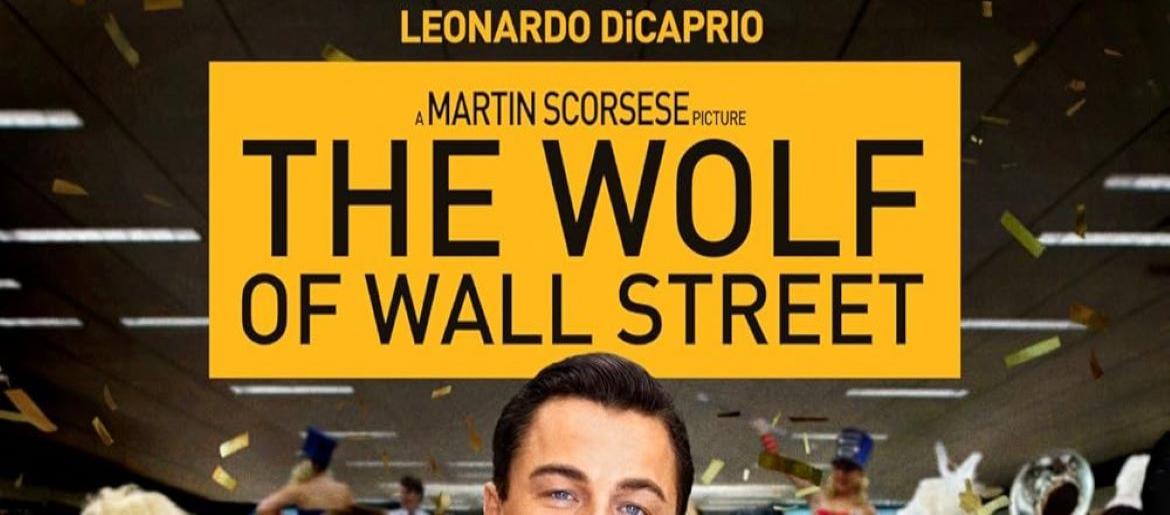
The Wolf of Wall Street Font
The Wolf of Wall Street Font perfectly embodies the chaos, ambition, and excess of Martin Scorsese’s 2013 masterpiece. Bold, confident, and unapologetically sharp, its lettering mirrors the high-stakes world of money, power, and risk portrayed in the film. The typography commands attention, instantly conveying energy and authority, much like Jordan Belfort himself. Fonts similar in style include Helvetica Bold, Arial Black, and Futura Extra Bold, all offering that slick, corporate edge and modern impact. Free alternatives can replicate this strong, high-energy aesthetic, making the typeface ideal for posters, titles, and promotional designs that need to feel ambitious and larger-than-life.